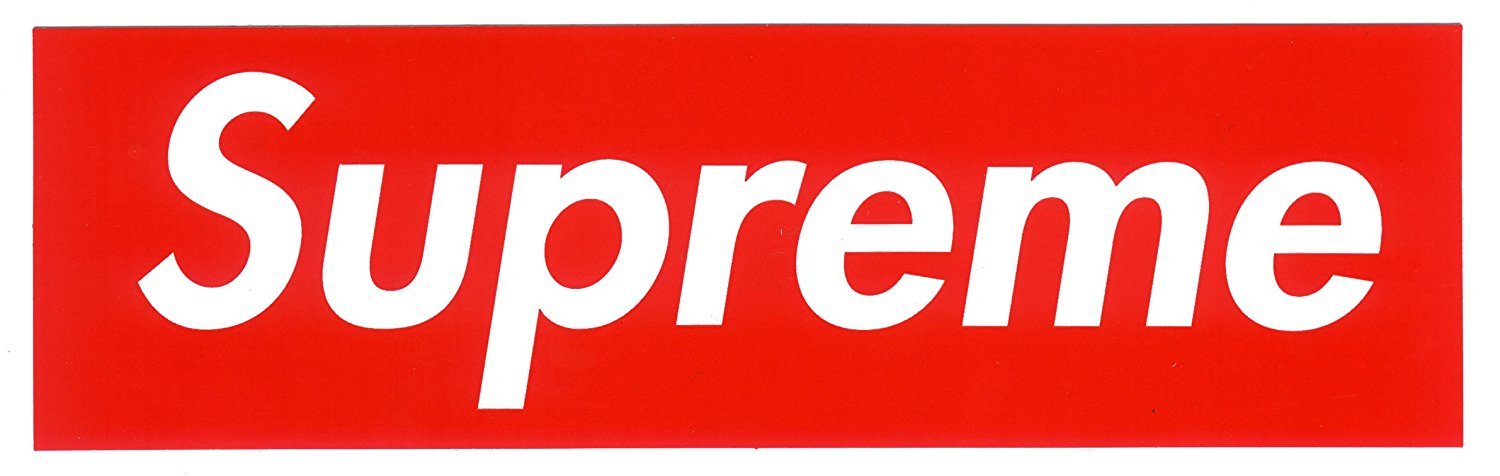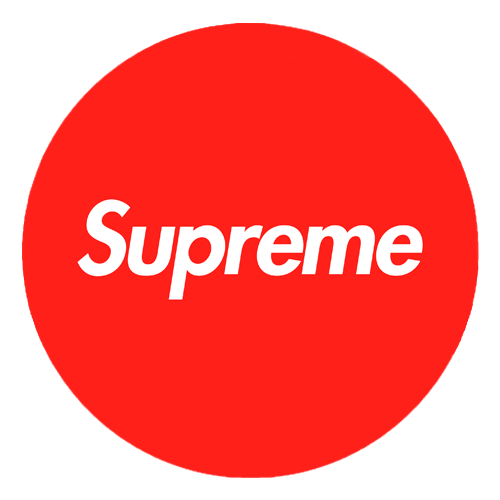
What Font Is The Supreme Logo
The white text is set in the futura std heavy oblique typeface.
What font is the supreme logo. The font being used is nunito and not futura. The titles of the tv sequence the huge bang thought are all produced in rage italic. The logo is based on the rather popular font called futura heavy oblique.
The brand caters to the downtown culture like skateboarding hip hop punk rock etc. Search and find fonts used by world brands in their logo. It is based on geometric shapes especially the circle similar in spirit to the bauhaus design style of the period.
Spoiler click to view you can find it here. Supreme is an apparel brand established in ny city. What is logo supreme font.
Futura font is a geometric sans serif typeface with a great repute in the type design market. The design of the logo itself is very heavily inspired by barbara krugers work from 1987 in which takes a shot at consumerism. Supreme is a clothing brand founded in new york city.
Paul renner was the one who took the charge for designing and releasing it for the first time during 1927 via bitstream. The font used for its logotype is similar to futura bold italic. The text lettering employing for the supreme logo is futura bold italic font.
Century gothic bold italic mostly known as the font used in the supreme logo. Futura is a geometric sans serif typeface designed by paul renner and released in 1927. The logo of supreme is simply its logotype portrayed in white on a red background.
This tool is in no way shape or form associated with the supreme brand or the futura font. The font used for its logotype is very similar to futura bold italic. It is a sans serif italicized type created by paul renner in 1927.
The font used for supreme logo is very similar to futura heavy italic which is a geometric sans serif font designed by paul renner and published by linotype. This is the font which is used in the famous fashion brand supreme located in new york city. So write away and create your supreme font style logo today.